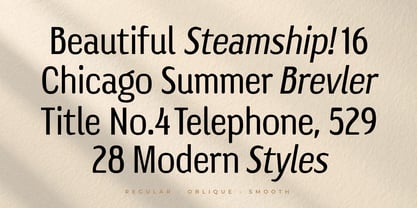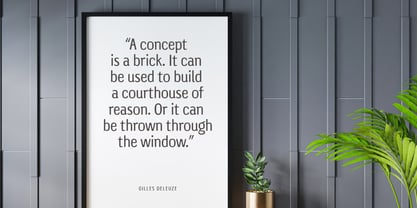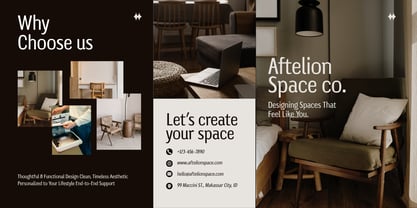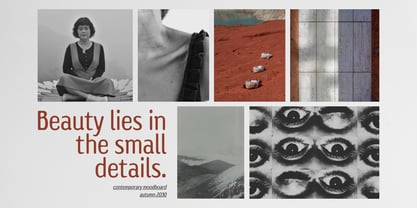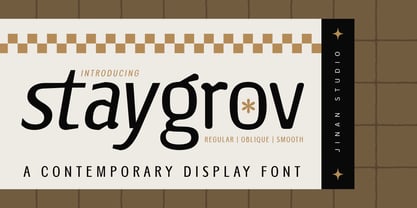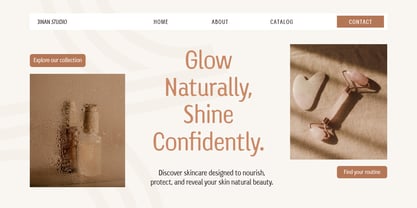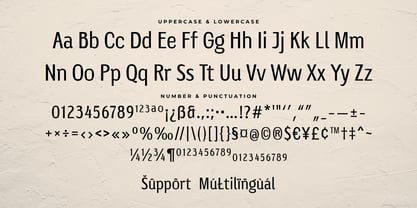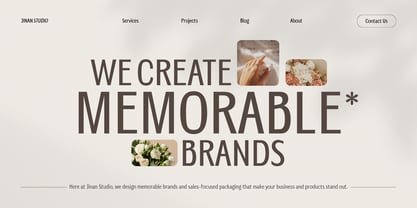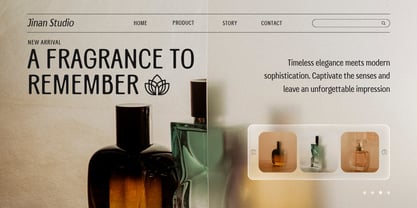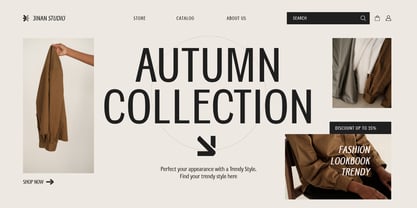
Staygrov
The Staygrov Font Family was designed by Andi Syahdang and published by Jinan Studio. Staygrov contains 3 styles and family package options. More about this family
Staygrov is a contemporary display font family designed with a bold, clean, and distinctive personality. Featuring smooth curves, unique letterforms, and stylish geometric details, Staygrov brings a fresh and artistic look to modern typography. Its strong visual character makes it perfect for creating eye-catching designs that feel confident, sophisticated, and memorable.
Staygrov comes with Regular, Oblique, and Smooth versions, giving you more flexibility for creative projects. Perfect for logos, branding, packaging, posters, editorial design, social media, fashion, and modern headlines.
With its bold and contemporary style, Staygrov is a great choice for creating memorable and professional designs.
• A set of uppercase and lowercase glyphs
• Number, symbol, and punctuation
• Multilingual Support
• Some Alternate